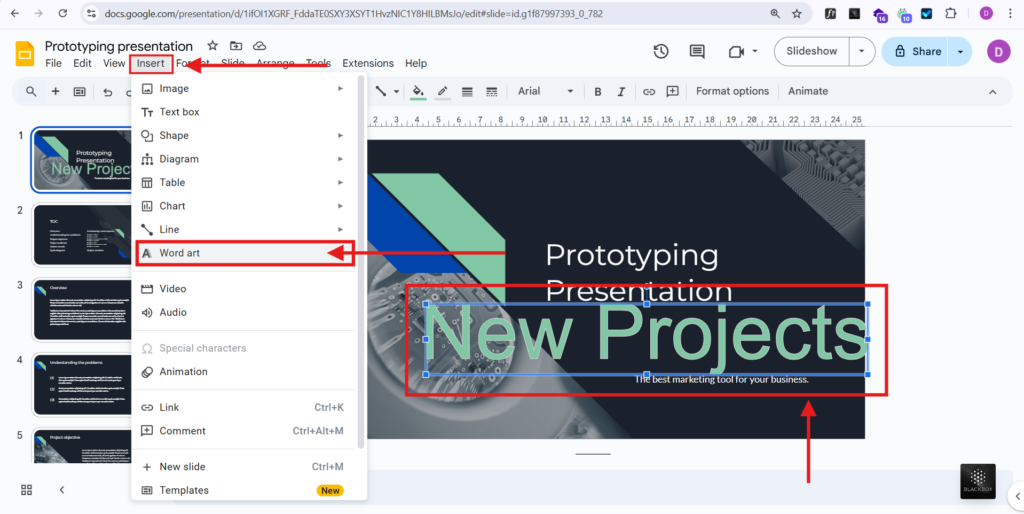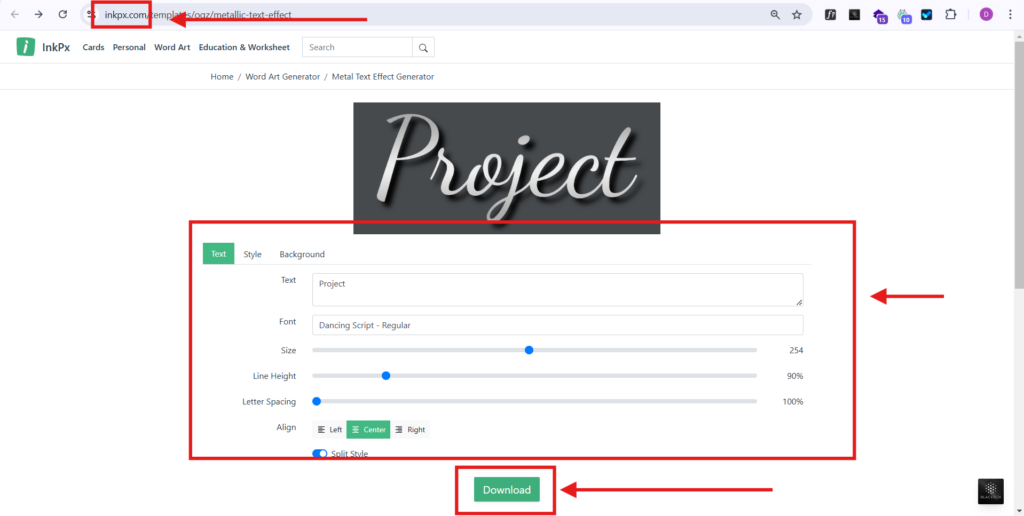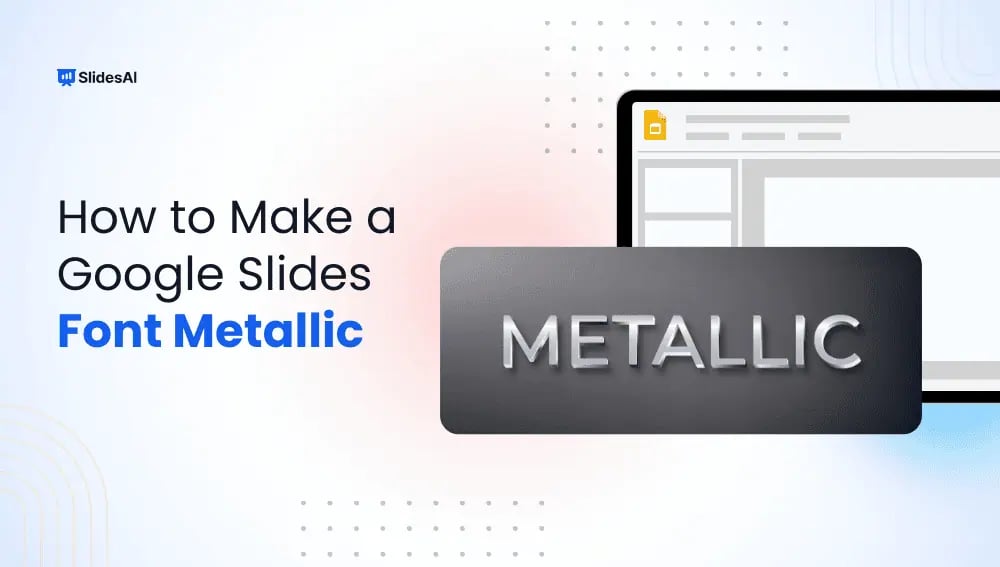
How to Make a Google Slides Font Metallic?
Fonts are the silent heroes of any presentation. They set the tone, create an emotional impact, and make your content stand out. But what if we told you there is a way to take your text up a notch and make it truly shine?
Adding a metallic effect to your text can transform a simple presentation into something visually stunning and professional.
In this step-by-step guide, you will learn how to make a Google Slides font metallic using Google Slides and a few handy third-party tools.
What Is a Metallic Font Effect in Google Slides?
A metallic font effect is a text styling technique that mimics the appearance of real metals such as gold, silver, chrome, or bronze. Instead of using flat colors, metallic text relies on gradients, highlights, and shadows to create a reflective, shiny look.
In Google Slides, metallic fonts are not available as a built-in text style. However, you can recreate the effect using Word Art with custom gradients or by importing metallic text created using third-party design tools.
This effect is commonly used in:
• Title slides
• Product launch presentations
• Award ceremonies
• Marketing and branding decks
• Event announcements
How to Create Metallic Text Effect in Google Slides Through Word Art?
To make the text appear metallic in Google Slides, you have to use Word Art. Here’s how you can make it happen:
• Step 1: Start by opening the presentation where you want to add that eye-catching metallic text.
• Step 2: Go to “Insert > WordArt”, then type in your text and press Enter. Choose the font style you like and set the border to transparent for a cleaner look.
• Step 3: Click on “Fill Color > Gradient > Custom” to start customizing your metallic look.
• Step 4: Select the colors you want for your metallic effect. Usually, something bold and shiny works best for metallic fonts.
• Step 5: Add gradient stops at different points and pick various shades that will mimic a metallic shine!
How to Create Metallic Text Effect in Google Slides Through Word Art
Feel free to tweak it further until you get the perfect metallic finish that suits your design.
How to Make a Font Metallic in Google Slides Using Third-Party Tool?
While you can use Google Slides to make a text appear metallic, you can make use of a third-party tool as well for more customization. Here’s how to get started:
• Step 1: Open a third-party tool like InkPx, Text Studio, or any similar platform. We are using InkPx for this example.
• Step 2: Scroll through the options and choose the “Metallic” effect to get that shiny look.
• Step 3: Type in your desired text, then change the background color to white for a clean, crisp appearance.
• Step 4: Once you are satisfied with the metallic font, download it as an image file.
• Step 5: Go to the Google Slides presentation where you want to use the metallic text.
• Step 6: Click on “Insert > Image > Upload From Computer”, and select the metallic font image you just downloaded.
How to Make a Font Metallic in Google Slides Using Third-Party Tool
Frequently Asked Questions About Metallic Font in Google Slides
1. Which fonts are best for metallic effects in Google Slides?
Sans-serif fonts like Roboto and Arial, or bold decorative fonts, work well. But you can work through any font depending on your design style.
2. Can I use custom colors for my metallic gradient?
Yes, you can create custom gradients by adding gradient stops and choosing different shades of your preferred metallic color.
3. What are some popular third-party tools for creating metallic fonts?
Popular tools like InkPx, Text Studio, Canva, and CoolText are great options for designing metallic text.
4. Why is it important to set the background to white before downloading the text?
A white background makes your text appear clean and crisp when you add it to your Google Slides presentation.
5. What to do if my gradient stops in Google Slides, don’t look smooth?
Add more gradient stops and adjust the shades gradually to create a smoother transition.